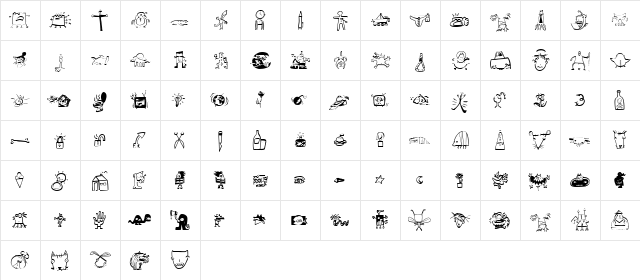
LTCaciocavallo Medium
Design Context for LTCaciocavallo Typeface
LTCaciocavallo is a composed and adaptable typeface that performs quietly and consistently across a wide range of design contexts.